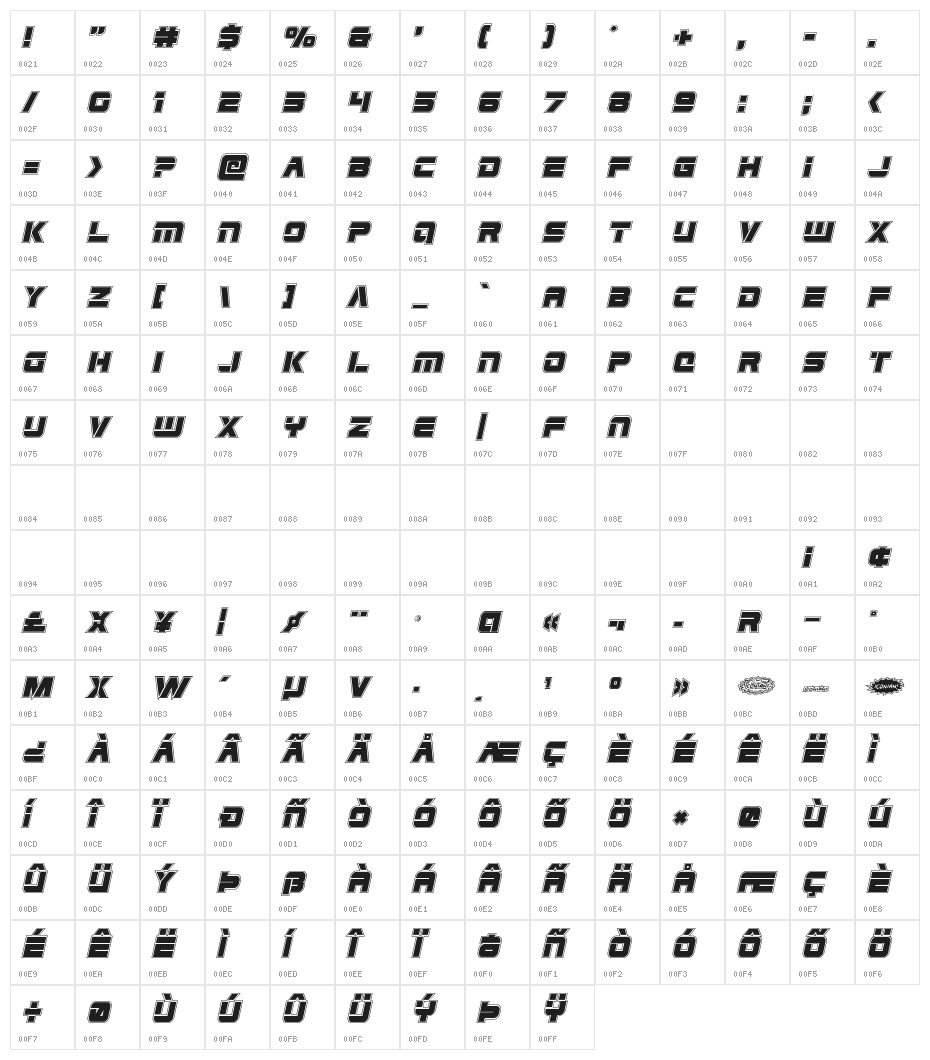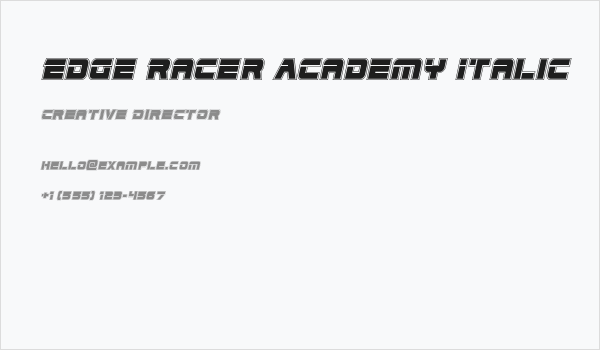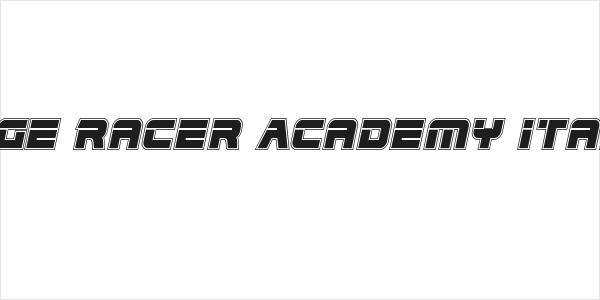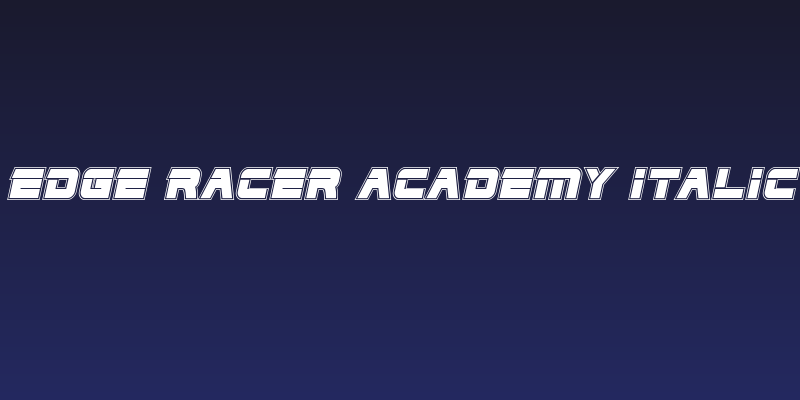
Edge Racer Academy Italic Font
Edge Racer Academy Italic Description
This font features a bold, futuristic design with a strong emphasis on geometric shapes and a dynamic, italicized slant. The characters are outlined with a double-layered effect, creating a sense of depth and movement. The uppercase letters are particularly striking, with sharp angles and clean lines that convey a sense of speed and modernity. The numerals and special characters maintain this cohesive style, ensuring versatility across various applications. The overall aesthetic is sleek and powerful, making it ideal for projects that require a bold statement.
| Proposed Projects | Ideal for sports branding, automotive designs, video game titles, and tech-related projects. |